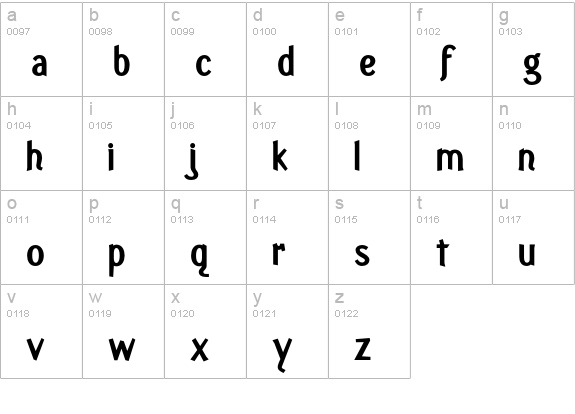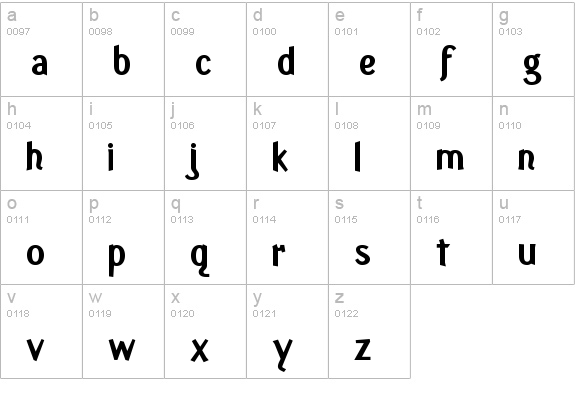
Fasciani-Senza-ExtraBold Font Details
Fasciani-Senza-ExtraBold is an extra-heavy, attention-grabbing variant in the Fasciani typeface family \xE2\x80\x94 well suited to high-impact headlines, posters, and bold branding.
Fasciani-Senza-ExtraBold is a bold and striking font that exudes confidence and modernity. With its thick, powerful strokes and clean lines, this typeface commands attention and makes a strong visual statement. Perfect for headlines, titles, and any design that requires a bold touch, Fasciani-Senza-ExtraBold is sure to leave a lasting impression. What's even better is that Fasciani-Senza-ExtraBold is available for free download at FontsMarket.com. Now you can easily access this attention-grabbing font and incorporate it into your projects with ease. Don't miss out on the opportunity to enhance your designs with the bold and impactful style of Fasciani-Senza-ExtraBold - download it for free today!